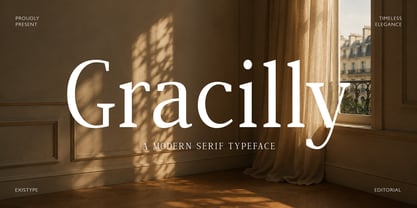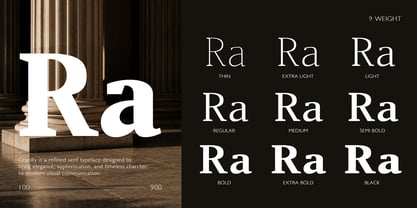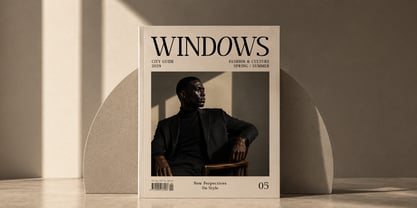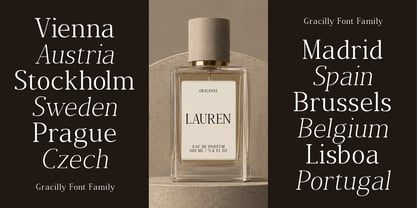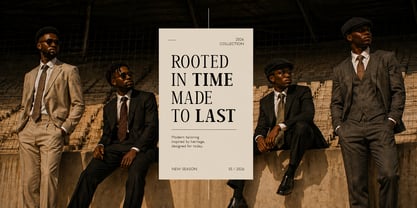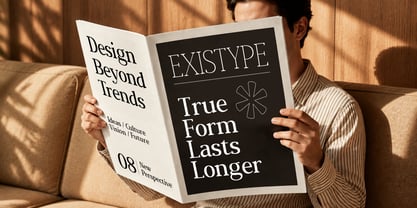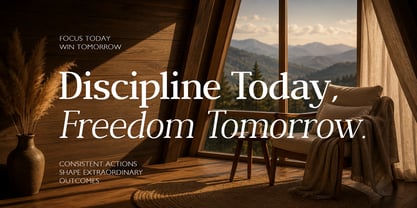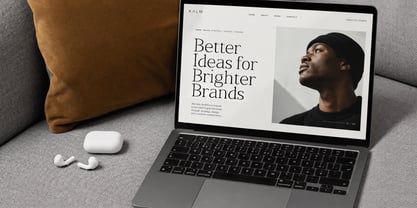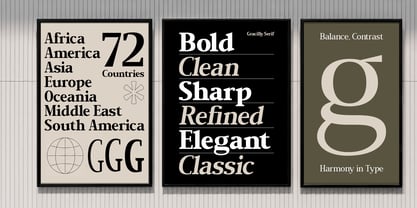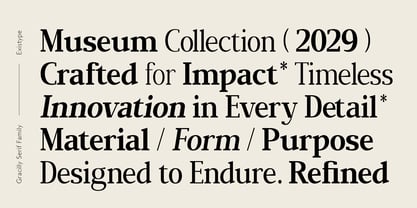
Gracilly
by Existype
The Gracilly Font Family was designed by M. Syibran Malasyi and published by Existype. Gracilly contains 127 styles and family package options. More about this family
Gracilly is a versatile serif font family designed to bring a refined, expressive character to both display and editorial typography. With 9 weights and 7 widths plus slanted, it offers a broad range of styles, from delicate and elegant cuts to bold and commanding forms. Its carefully balanced proportions and distinctive serif details make it suitable for headlines, branding, editorial layouts, packaging, and digital applications. The family also features extensive international language support, making it a flexible choice for multilingual projects across different writing systems.
Designers: M. Syibran Malasyi
Foundry: Existype